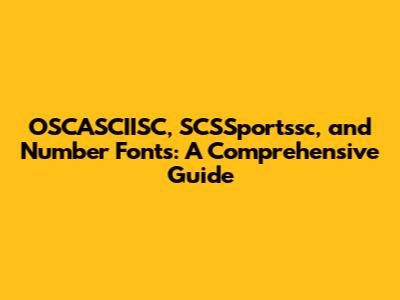
- Always test your fonts: Before finalizing your design, test your fonts on different devices and platforms to ensure that they display correctly.
- Consider your audience: Choose fonts that are appropriate for your target audience and the overall design aesthetic.
Hey guys! Ever found yourself wrestling with OSCASCIISC, SCSSportssc, or number fonts and feeling totally lost? You're definitely not alone! These topics can seem super technical, but don't worry, we're going to break it all down in a way that's easy to understand. This guide is designed to provide a comprehensive overview, ensuring you grasp the essentials and can confidently tackle any related challenges. Whether you're a designer, developer, or just someone curious about fonts, this article is tailored for you.
Understanding OSCASCIISC
Let's kick things off with OSCASCIISC, which stands for Optical Character and String Sequence Intelligent Information Coding System for Information Interchange of Chinese Standard Interchange Code. Yeah, that's a mouthful! Basically, OSCASCIISC is a character encoding standard used in China. Understanding this is super important if you're working with Chinese text in any digital format. Fonts play a crucial role in how these characters are displayed, and knowing how they interact with OSCASCIISC can save you a ton of headaches.
Think of character encoding like a secret code that tells your computer how to display letters, numbers, and symbols. Different encoding standards exist because different languages and regions have unique character sets. OSCASCIISC is specifically designed to handle the complexities of the Chinese language. This encoding system ensures that Chinese characters are correctly represented across various digital platforms, from websites to documents. When a font supports OSCASCIISC, it means it contains the glyphs necessary to display all the characters defined in this standard. Without proper OSCASCIISC support, Chinese text can appear as gibberish or boxes, which is definitely not what you want!
Working with OSCASCIISC fonts involves several key considerations. First, ensure that your software or platform supports the encoding. Most modern operating systems and applications have built-in support for OSCASCIISC, but older systems might require additional configuration. Second, choose fonts that are specifically designed for Chinese text and include OSCASCIISC support. These fonts will contain the necessary glyphs to accurately display all Chinese characters. Finally, always test your text display to ensure that everything looks correct. This can involve checking for missing characters, incorrect rendering, or other display issues. By paying attention to these details, you can ensure that your Chinese text is displayed accurately and professionally.
The importance of OSCASCIISC extends beyond mere character display. It plays a critical role in data storage, transmission, and processing. When data is encoded using OSCASCIISC, it can be reliably stored and retrieved without character corruption or loss. This is particularly important for databases, archives, and other long-term storage solutions. Additionally, OSCASCIISC ensures that Chinese text can be transmitted correctly across networks and displayed accurately on different devices. This is essential for web applications, email communication, and other forms of digital communication. By adhering to OSCASCIISC standards, you can ensure the integrity and accessibility of Chinese text in all your digital interactions.
Diving into SCSSportssc
Next up, let's chat about SCSSportssc. Now, this one might not be as universally known as OSCASCIISC, but it's still important, especially if you're dealing with sports-related content that requires specific fonts or styling. SCSSportssc could refer to a specific font style, a design trend in sports graphics, or even a custom font used by a particular sports team or organization. Understanding what SCSSportssc means in your context is key.
In many cases, "SCSSportssc" might point to a specific aesthetic commonly used in sports graphics. This could include bold, dynamic fonts that convey a sense of energy and excitement. These fonts often feature sharp angles, strong lines, and a sense of motion. The goal is to capture the intensity and competitive spirit of sports. When selecting fonts for sports-related projects, consider those that evoke these qualities. Look for fonts that are easily readable, even at a distance, and that work well with a variety of design elements, such as logos, images, and colors. Experiment with different font styles and sizes to find the perfect fit for your project.
Furthermore, "SCSSportssc" could also refer to custom fonts created for specific sports teams or organizations. These fonts are often designed to reflect the team's brand identity, incorporating unique design elements that tie into the team's logo, colors, and overall aesthetic. Custom fonts can be a powerful way to reinforce a team's brand and create a consistent visual identity across all media channels. If you are working with a sports team or organization, it's important to understand their brand guidelines and ensure that you are using the correct fonts and styles.
When working with SCSSportssc or sports-related fonts in general, it's important to consider the overall design context. Fonts should complement the other visual elements in your design, such as images, colors, and logos. They should also be legible and easy to read, even at a distance. Experiment with different font styles, sizes, and weights to find the perfect balance. Additionally, pay attention to kerning and leading to ensure that your text is properly spaced and visually appealing. By carefully considering these factors, you can create sports-related designs that are both visually striking and highly effective.